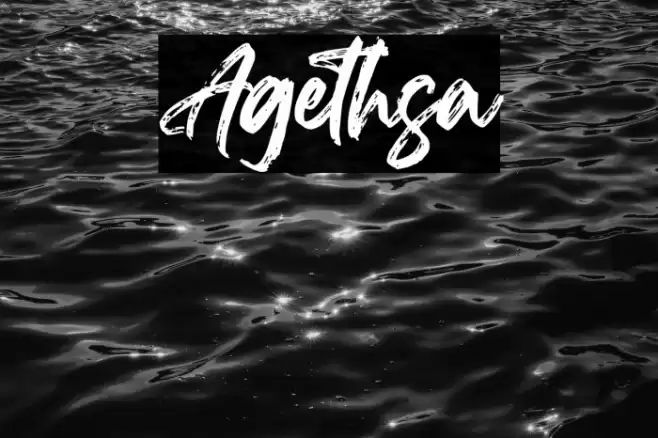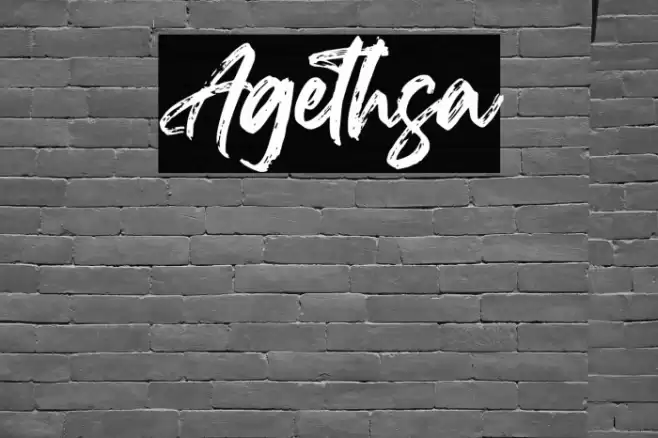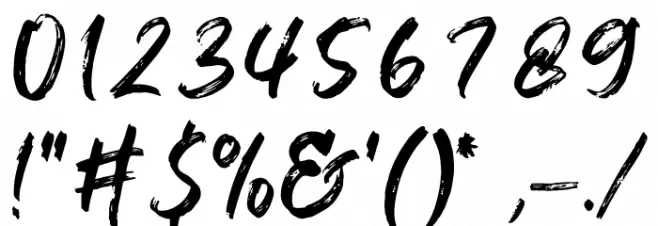
Agethsa Font
Agethsa Description
This font features a bold and expressive brush script style, characterized by its dynamic and energetic strokes. The letters have a hand-painted appearance, with varying thicknesses that create a sense of movement and fluidity. The uppercase letters are particularly striking, with dramatic flourishes and a slightly irregular baseline that adds to the handcrafted feel. The lowercase letters maintain this lively aesthetic, offering a cohesive look across the alphabet. Numbers and special characters are equally bold, ensuring consistency throughout. This font's artistic flair makes it ideal for projects that require a personal touch.
A bold, expressive brush script font with dynamic strokes and a handcrafted feel from Regular fonts.